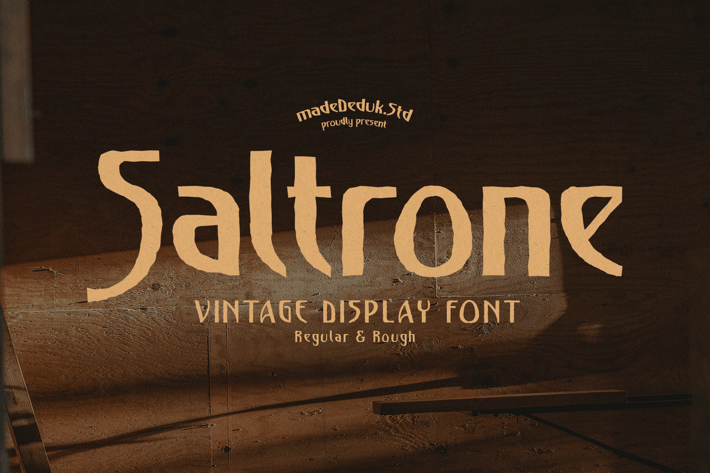
Saltrone Display Font
MadeDeduk
Saltrone is a display font, come with single weight, legible and expressive shapes. A lot of stylish alternates characters and ligature will makes this font suitable for your any project design. This font perfect for logos, branding, packaging, advertisements, music covers and more!